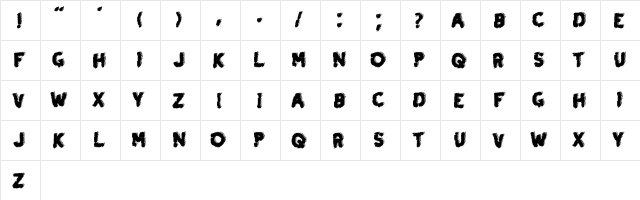
Night Prowler Regular
| Foundry | Fr餩ric Rich |
| Designer | Fr餩ric Rich |
Design Context for Night Prowler Typeface
Night Prowler is a composed and adaptable typeface that performs quietly and consistently across a wide range of design contexts.